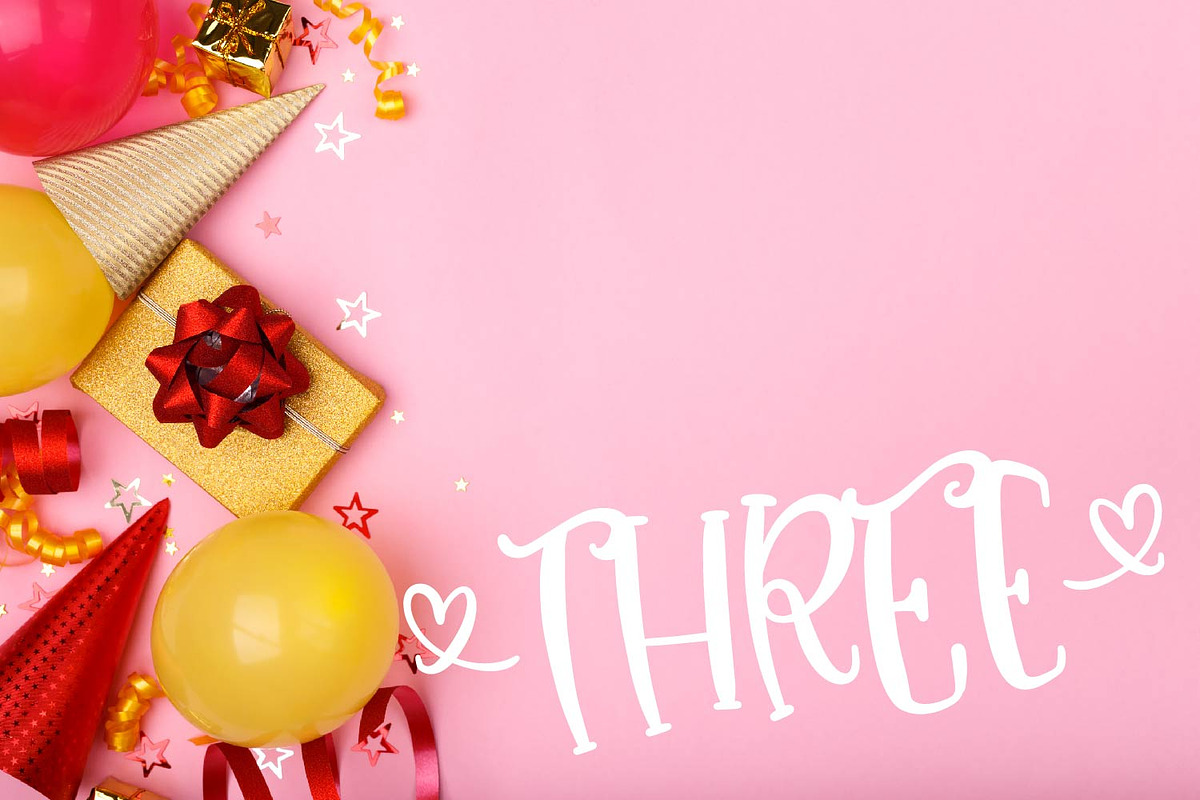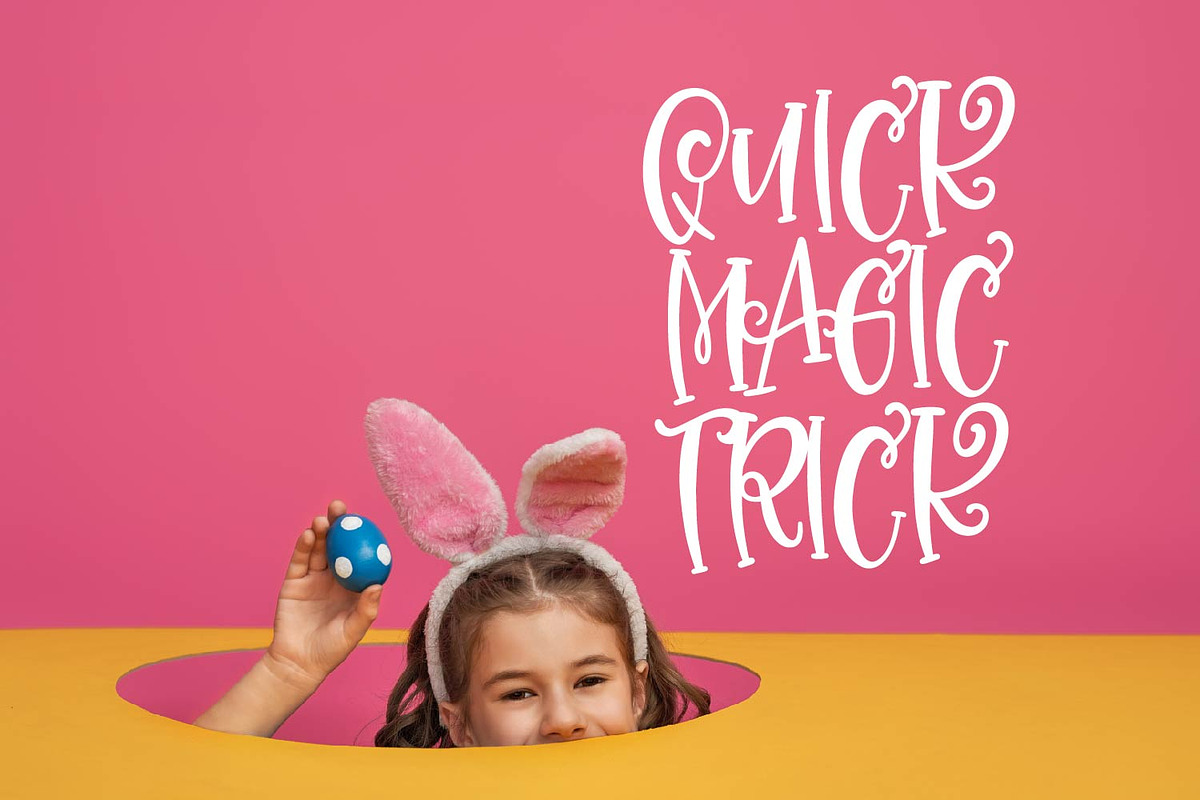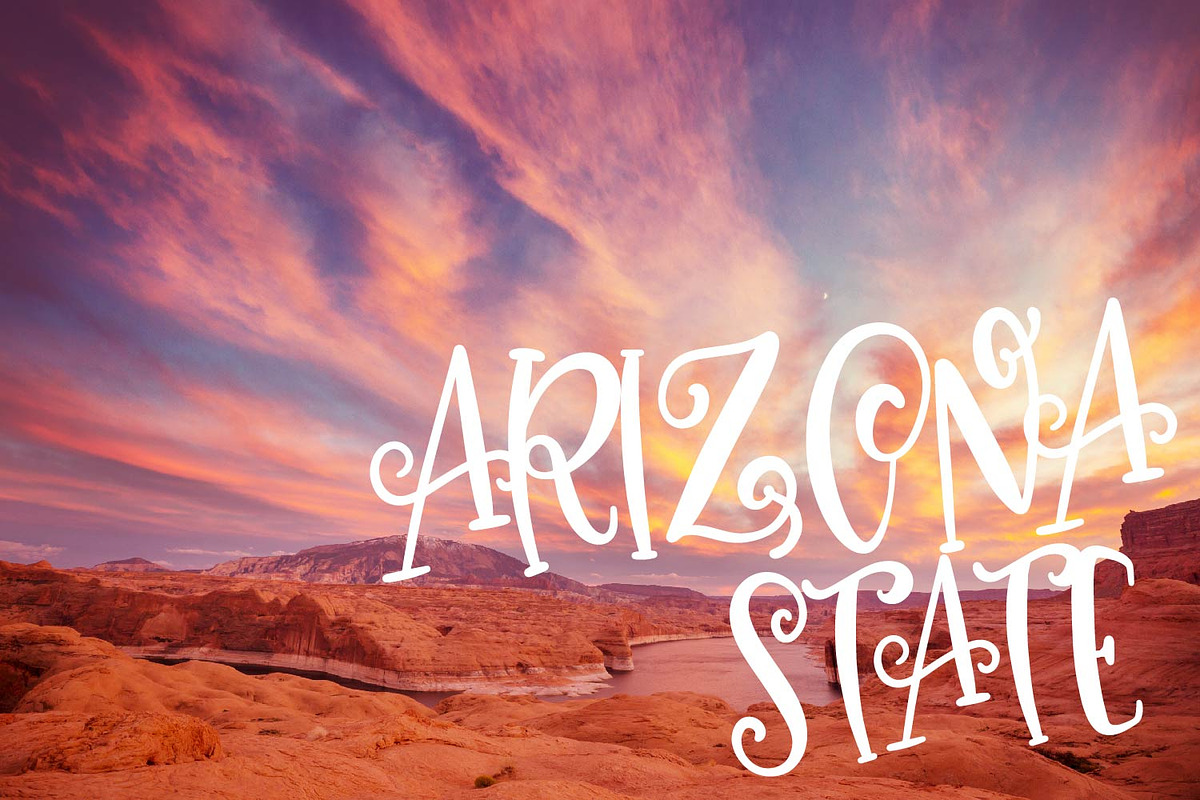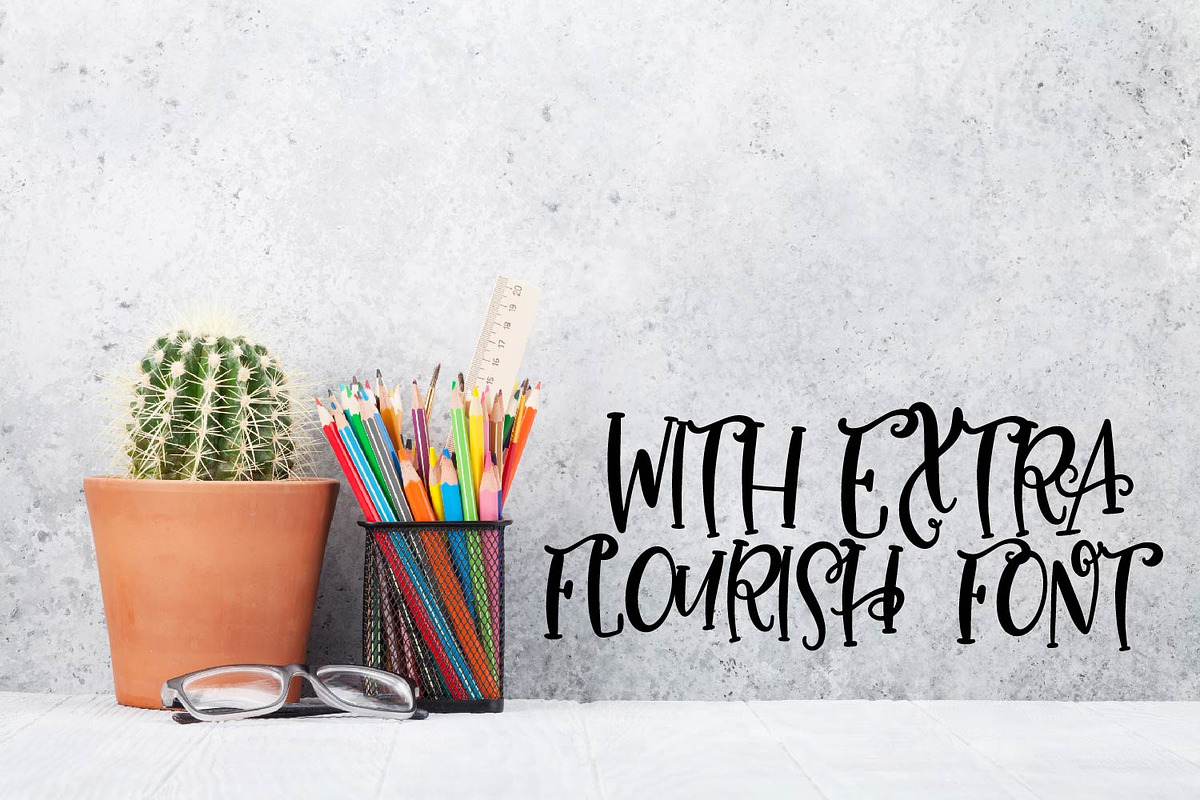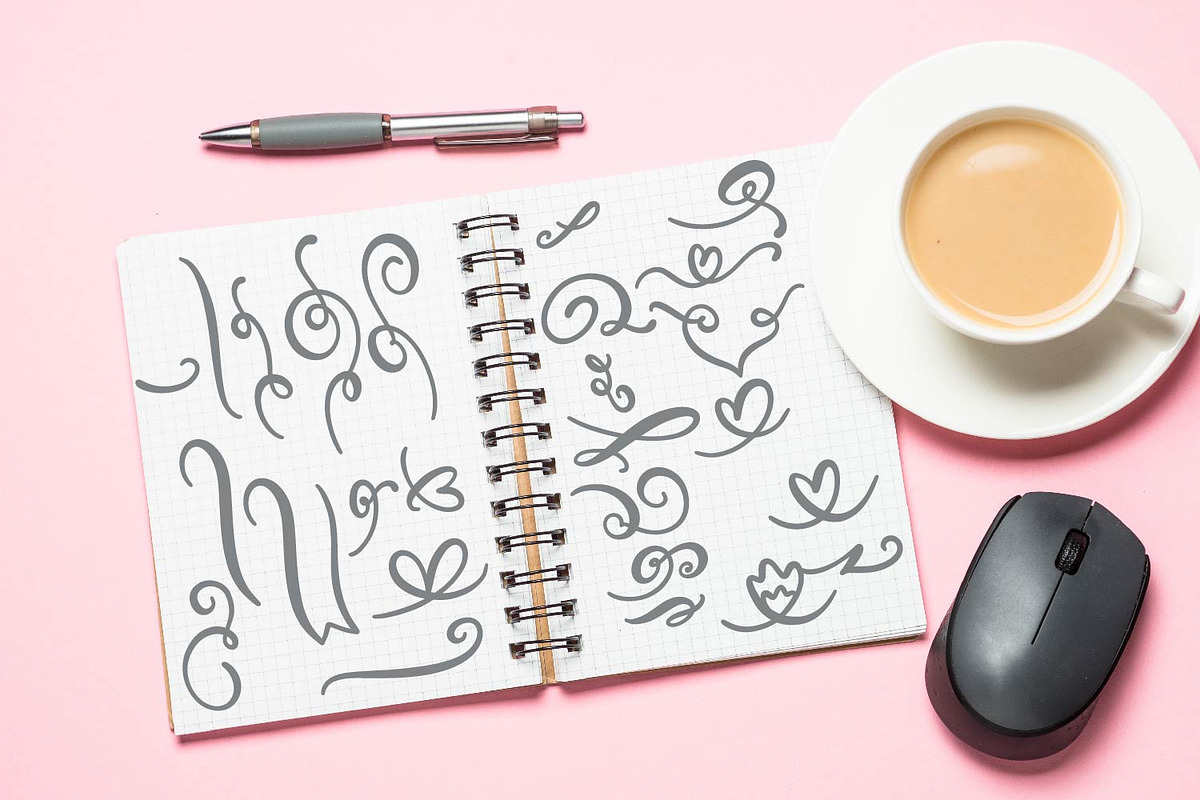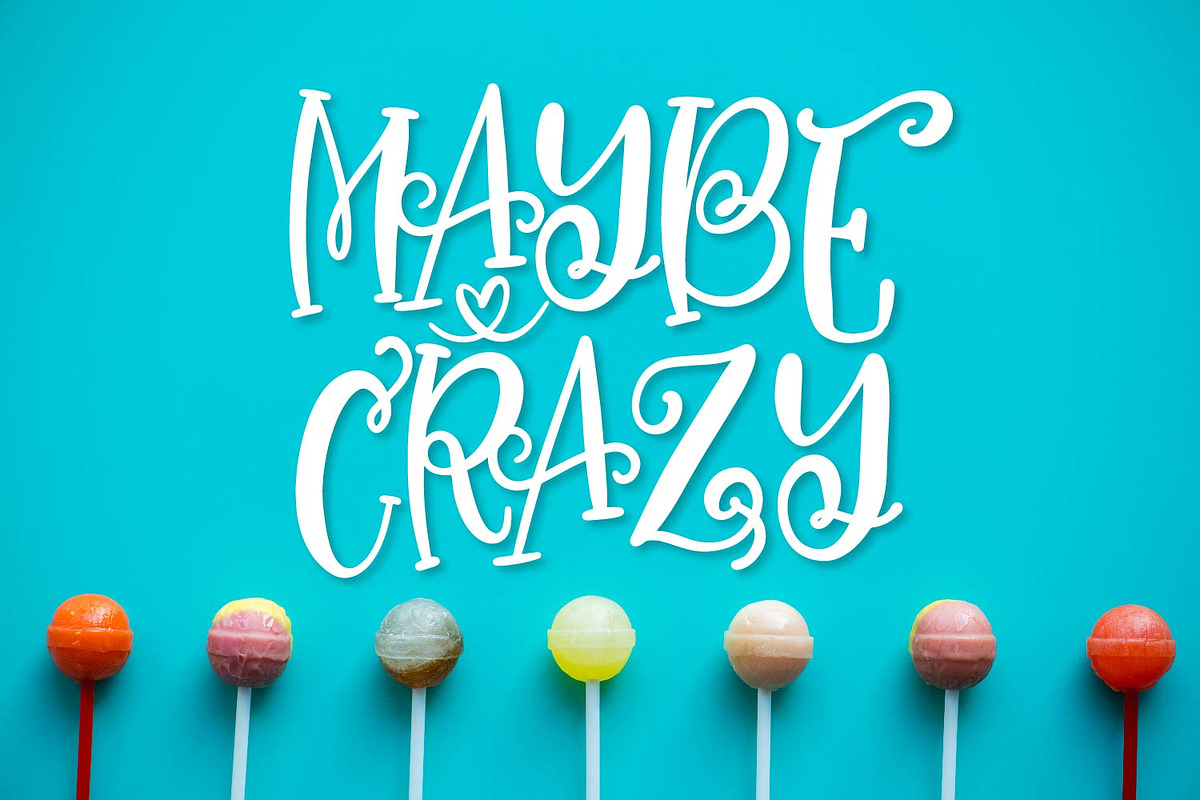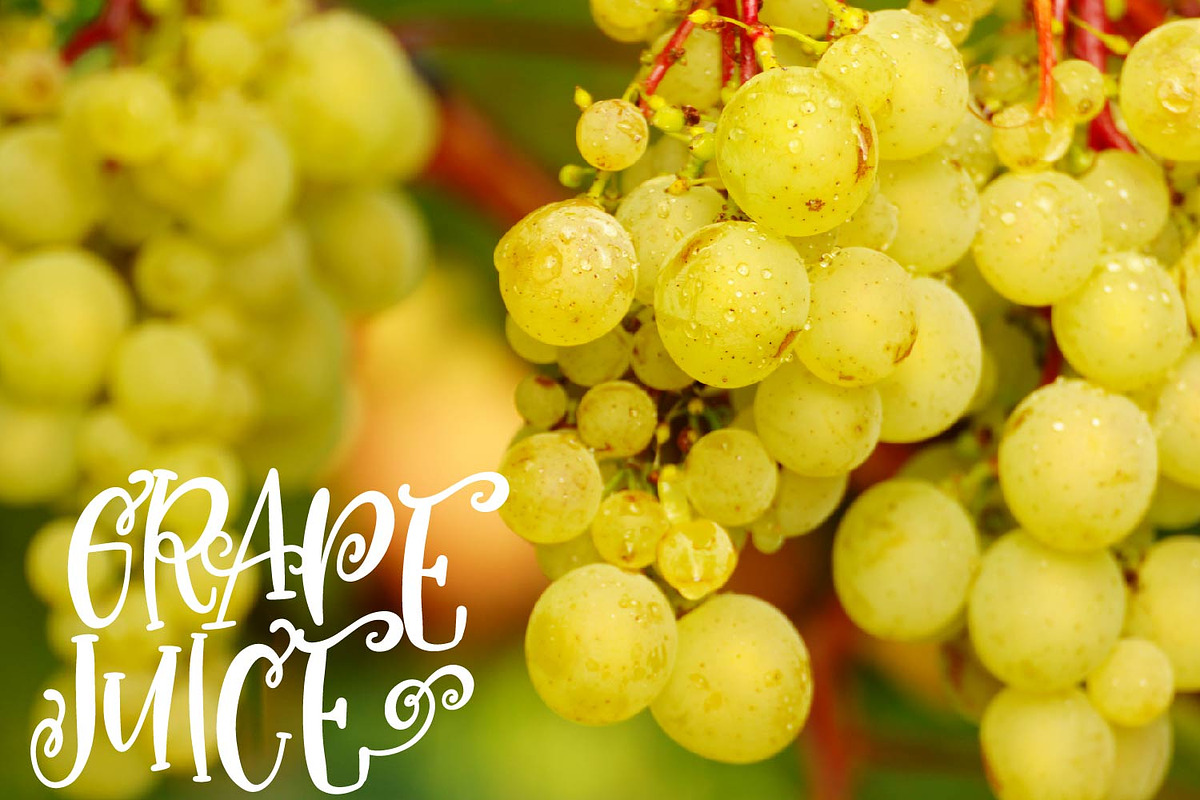
Magical Unicorn Font - With Doodles
Magical Unicorn Font With Doodles by CraftyLittleNodes is a font selected for branding, posters, packaging, typography.
Why Magical Unicorn Font - With Doodles is worth a look
Magical Unicorn Font - With Doodles by CraftyLittleNodes fits naturally into Branding, posters, packaging, typography.